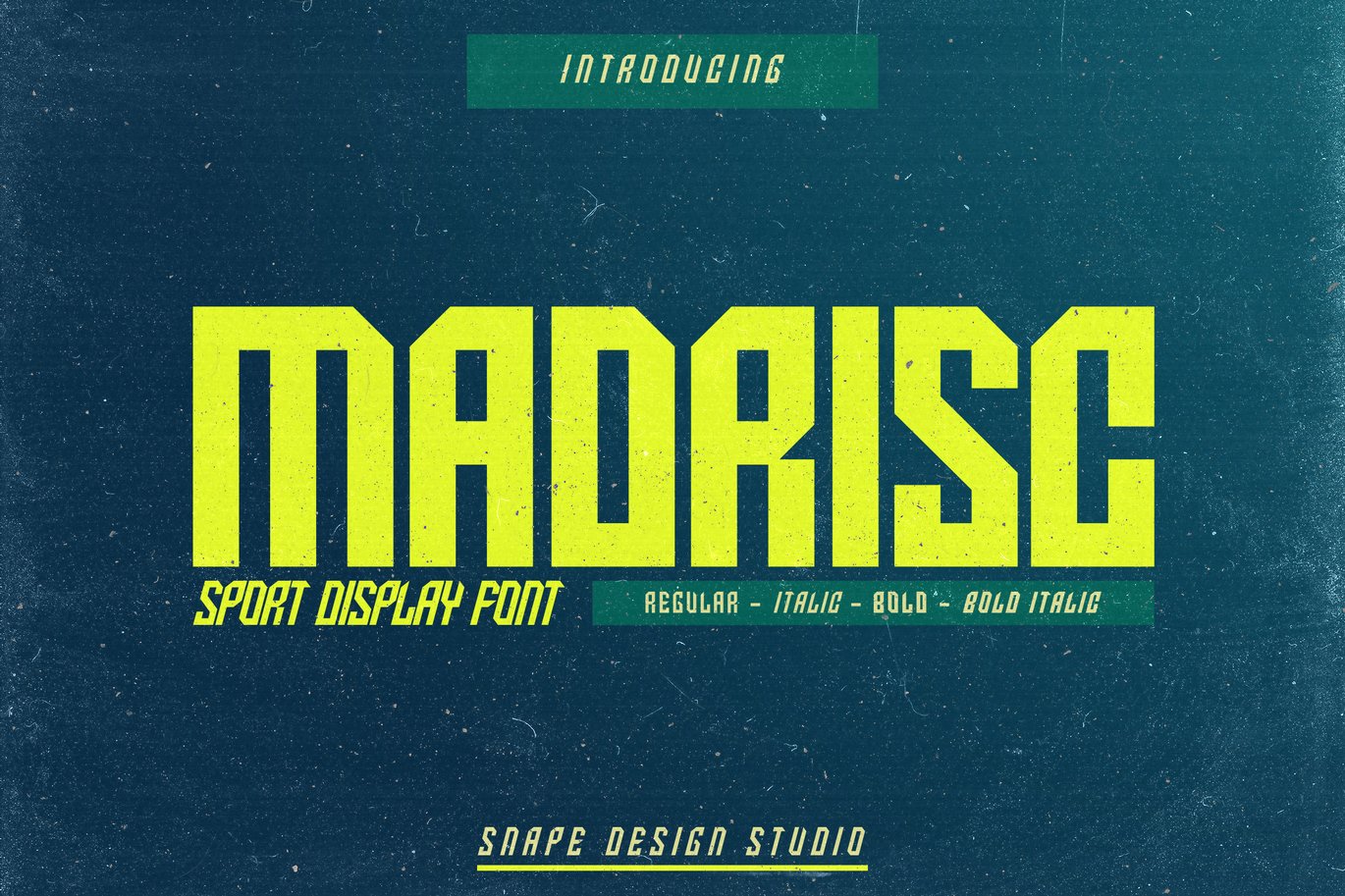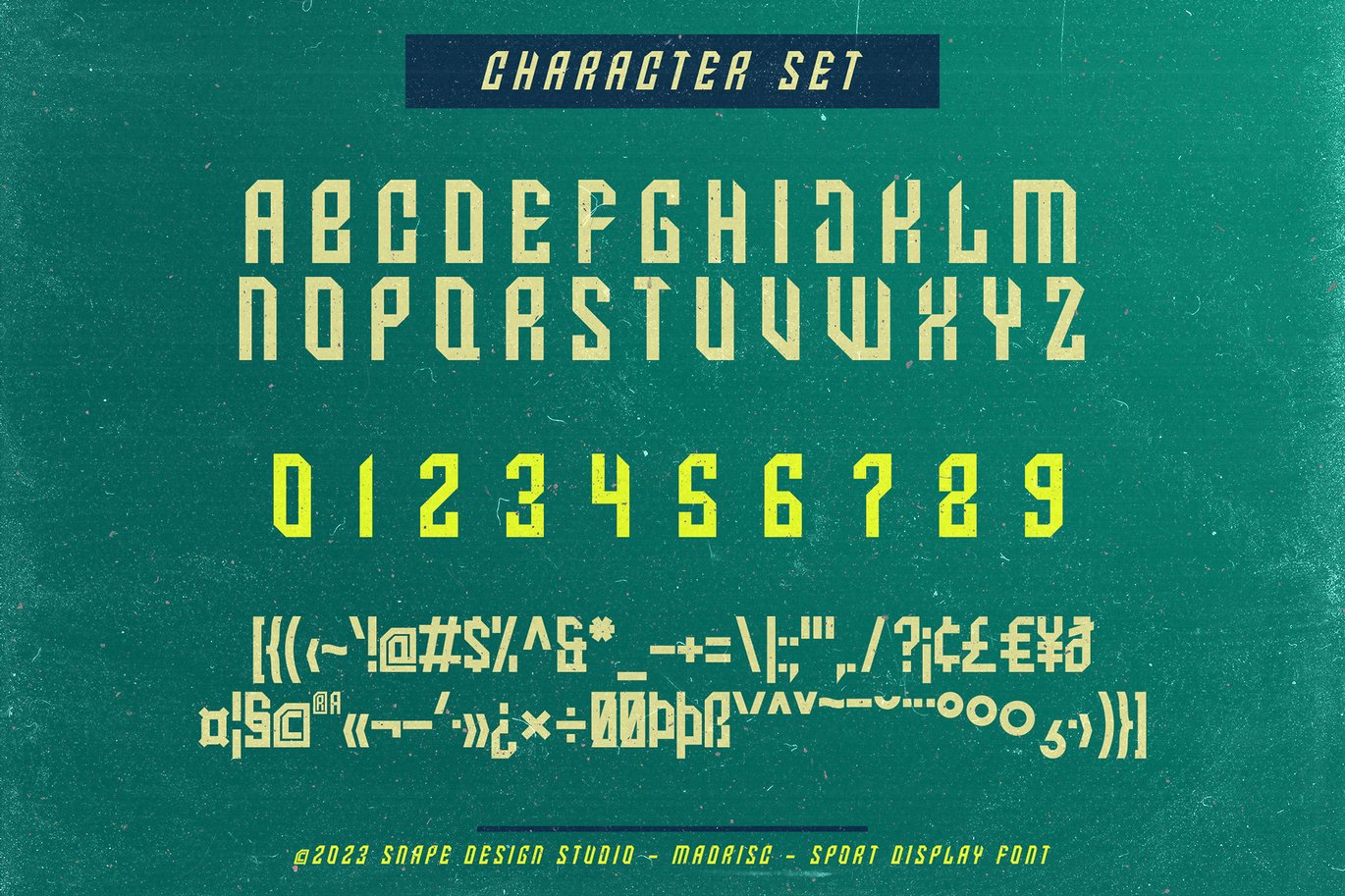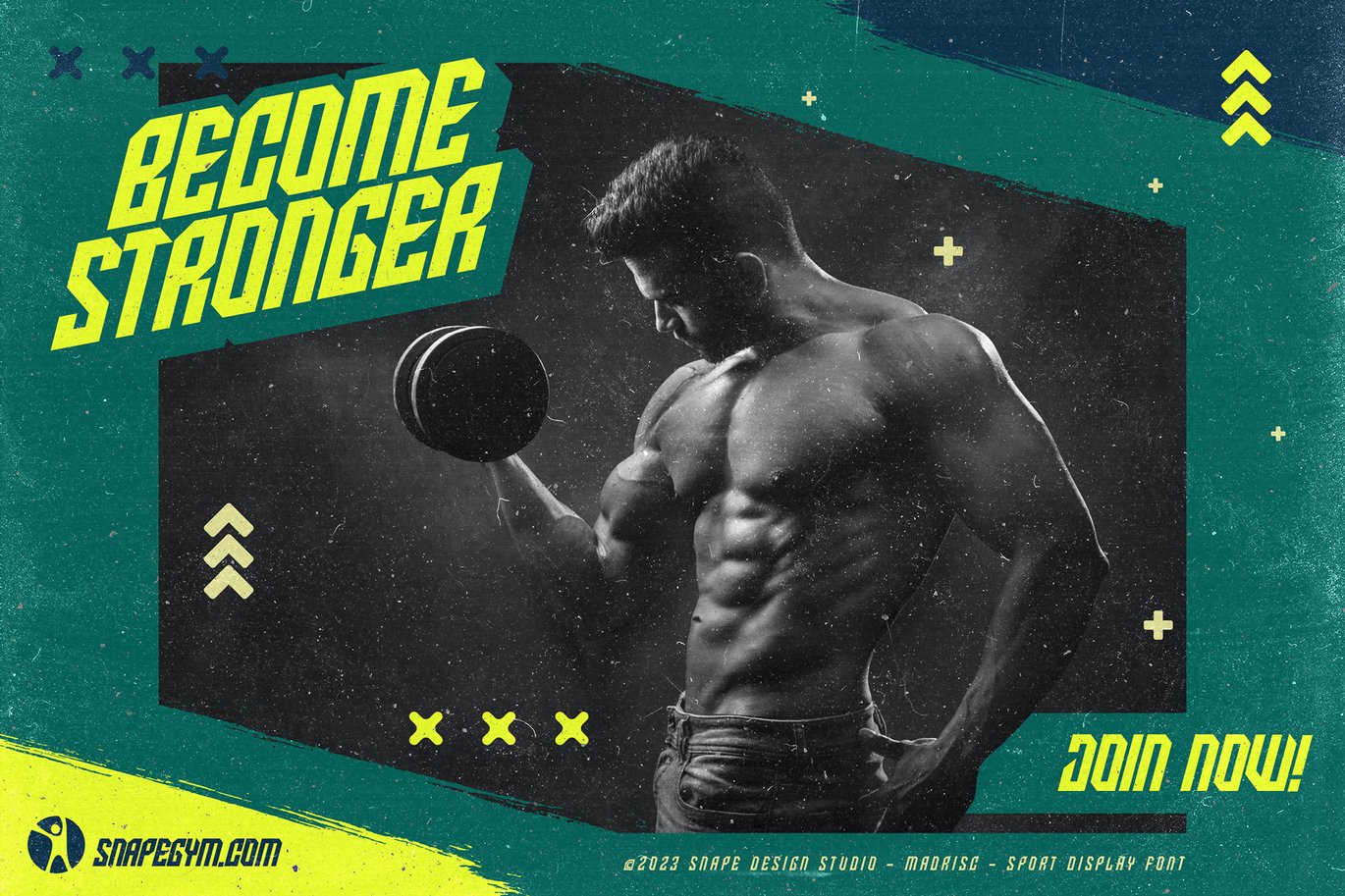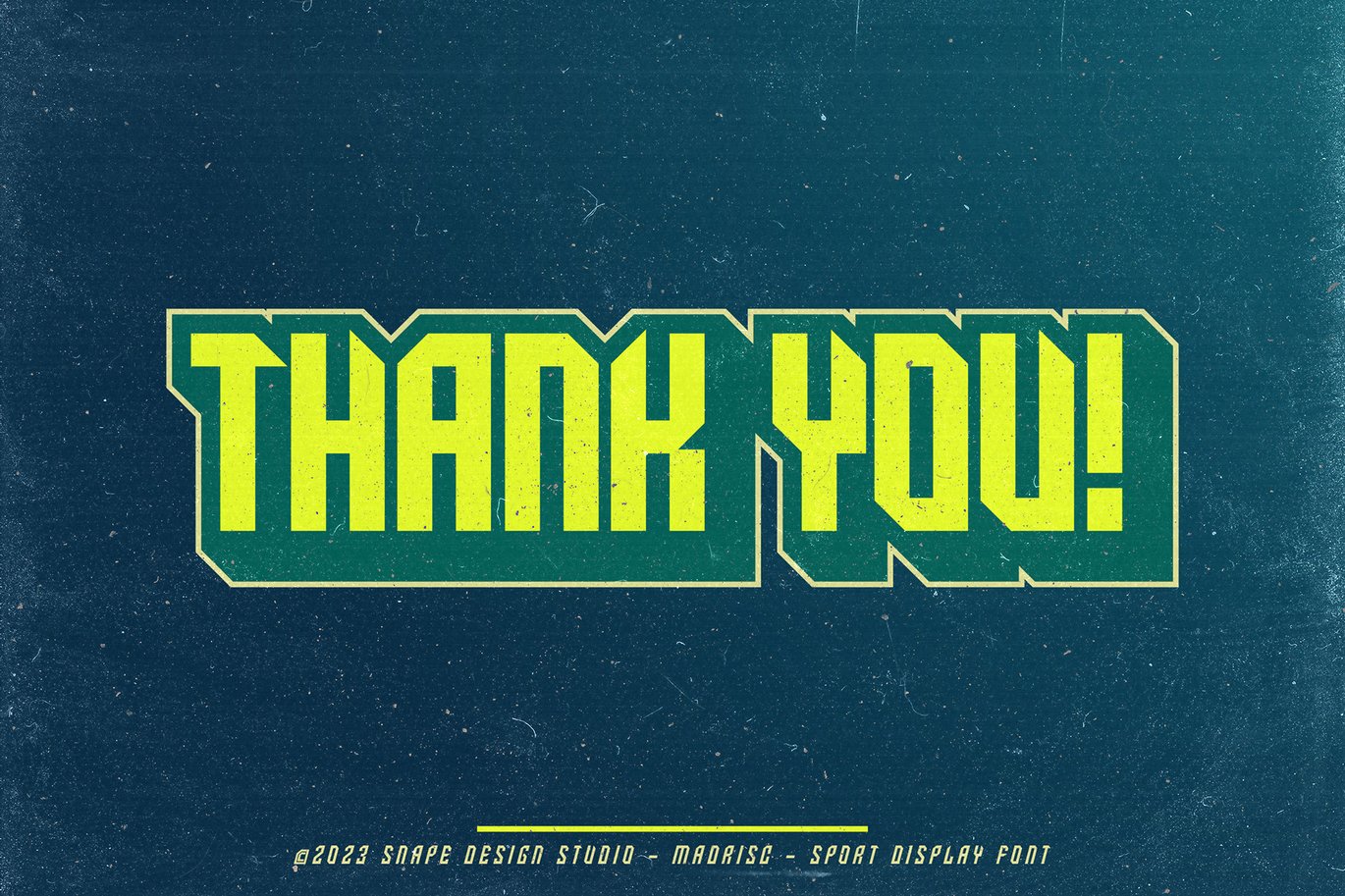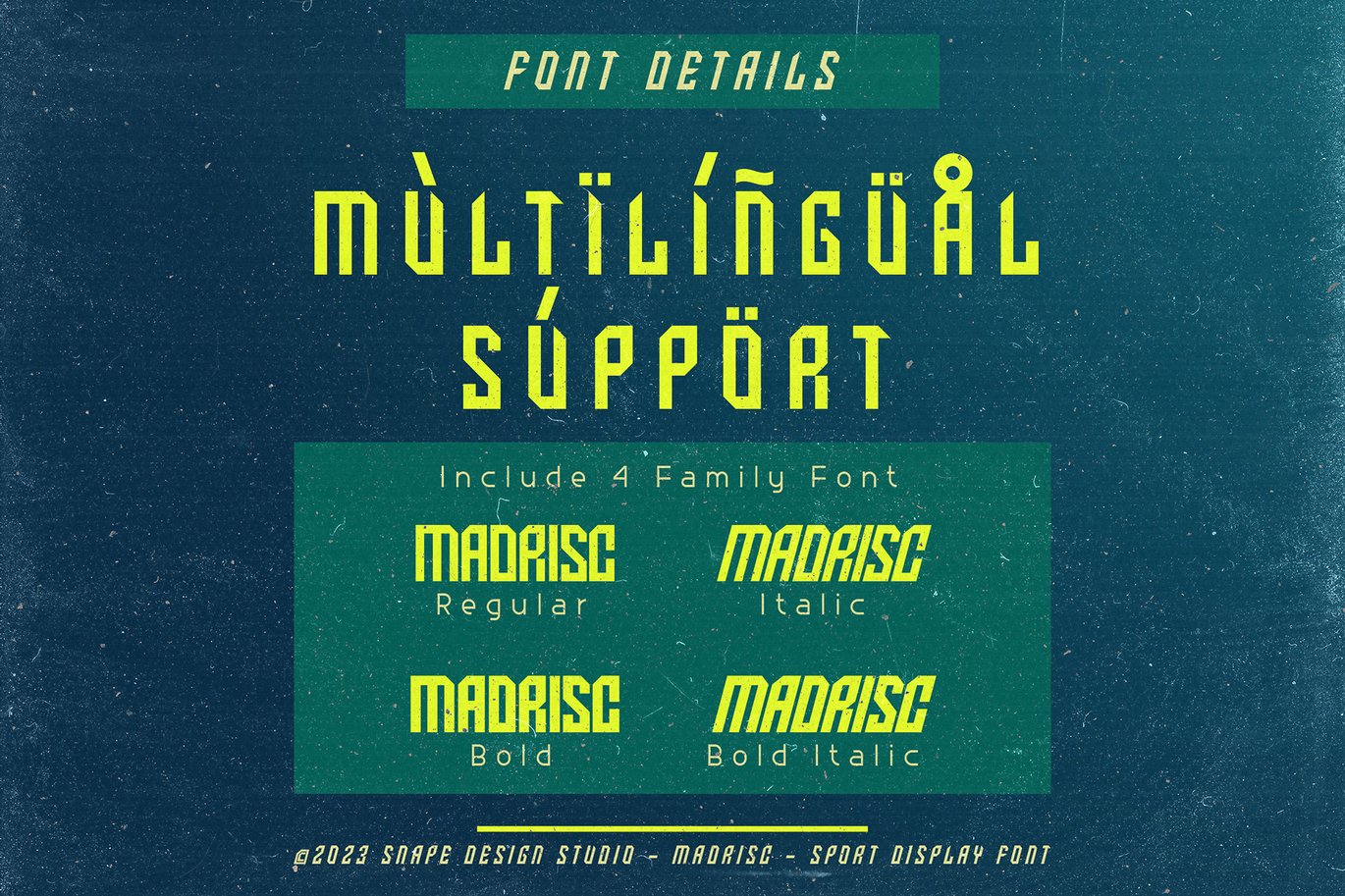
Madrisc – Sport Font
Madrisc is sport font, designed to draw attention and highlight any project that requires a bold feel, look powerful, created to add a vibrant touch to your sport-inspired designs. Suitable for sport design, team, jersey, league, movie, documenter, film, logo, poster, game, book cover, headlines, title and many more projects. Add this font to your creative ideas and notice how it will make them stand out!
Lowercase
Number
Punctuation
FAMILY FONT :
Italic
Bold
Bold Italic